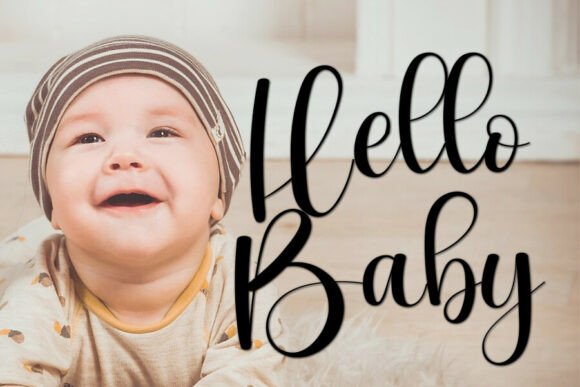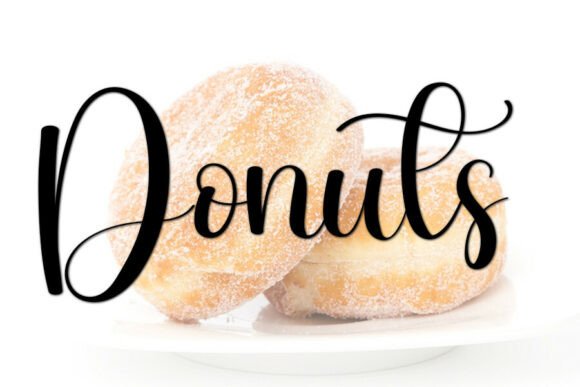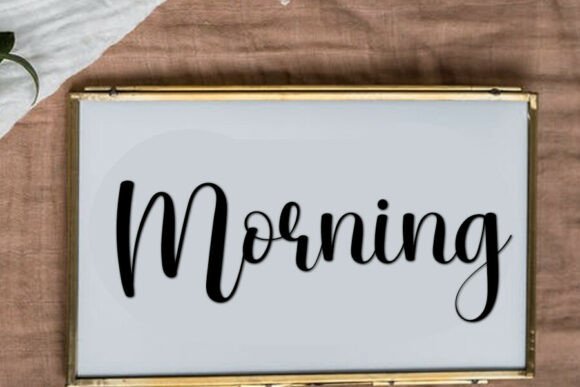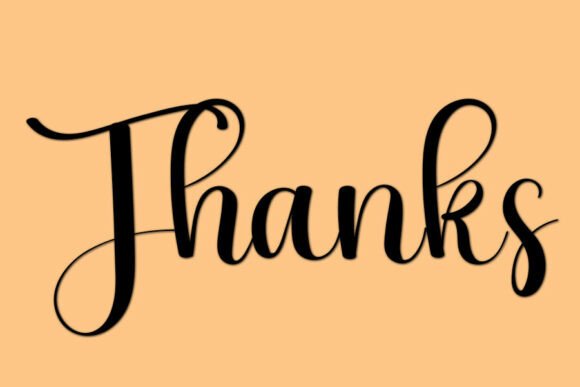
Introducing Biscuits Font: Elevate Your Designs with a Touch of Uniqueness
In the world of design, fonts play a pivotal role in conveying messages, evoking emotions, and creating lasting impressions. Among the myriad of fonts available, Biscuits font stands out as a beacon of freshness and individuality. This exquisitely unique and alluring font is designed to breathe new life into your creative endeavors, offering a wide range of applications that cater to diverse design needs.
The Versatility of Biscuits Font
Biscuits font is not just another addition to your font library; it’s a game-changer. Its exceptional adaptability makes it an ideal choice for various projects, including:
• YouTube Banners: Add a playful touch to your YouTube banners, making them stand out in a sea of content.
• Wedding Invitations: Elevate your wedding invitations with an aura of elegance and sophistication.
• Cover Logo Mockups: Create stunning cover logo mockups that capture the essence of your brand.
• ID Cards: Design professional and stylish ID cards that leave a lasting impression.
• Flyers: Craft eye-catching flyers that effectively communicate your message.
• Crafts: Explore the creative possibilities of Biscuits font in various craft projects.
The Charm of Biscuits Font
Biscuits font imparts an effortless charm to your designs, making it an indispensable asset to your creative arsenal. Its simplicity and individuality render it a unique tool that infuses every design with its distinctive character. Whether you’re a designer, crafter, or entrepreneur, Biscuits font offers a fresh perspective on typography, allowing you to:
• Tell Your Brand Story: Use Biscuits font as an instrumental tool in propelling and unfolding the story of your brand.
• Stand Out from the Crowd: Differentiate your designs with a font that exudes comfort, style, and elegance.
• Explore Endless Possibilities: With Biscuits font, the possibilities are infinite and brilliant, waiting to be explored.
The Benefits of Using Biscuits Font
What sets Biscuits font apart from other fonts is its unique blend of comfort, style, and elegance. By incorporating Biscuits font into your designs, you can:
• Enhance Visual Appeal: Add a touch of sophistication and charm to your designs.
• Increase Engagement: Create designs that resonate with your audience and leave a lasting impression.
• Streamline Your Workflow: Enjoy the simplicity and versatility of Biscuits font, making it easy to use across various projects.
With Biscuits font, transforming your designs has never been easier. This one-of-a-kind font is ready to breathe new life into your creative projects with just a few clicks. Whether you’re a seasoned designer or a crafty enthusiast, Biscuits font offers a world of possibilities waiting to be explored.
In conclusion, Biscuits font is a game-changing addition to any designer’s or crafter’s arsenal. Its unique blend of comfort, style, and elegance makes it an indispensable tool for creating stunning designs that leave a lasting impression. With its versatility, charm, and endless possibilities, Biscuits font is poised to revolutionize the way you approach typography and design. So why wait? Discover the magic of Biscuits font and elevate your designs to new heights.